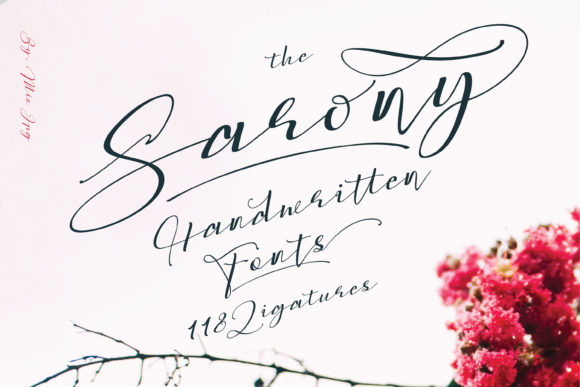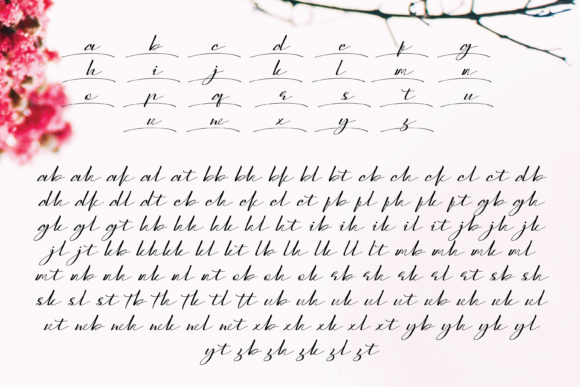
About Sarony Font
Sarony simplifies elegance into one truly outstanding handwritten font. It will elevate a wide range of design projects to the highest level, be it branding, headings, wedding designs, invitations, signatures, logos, labels, and much more!